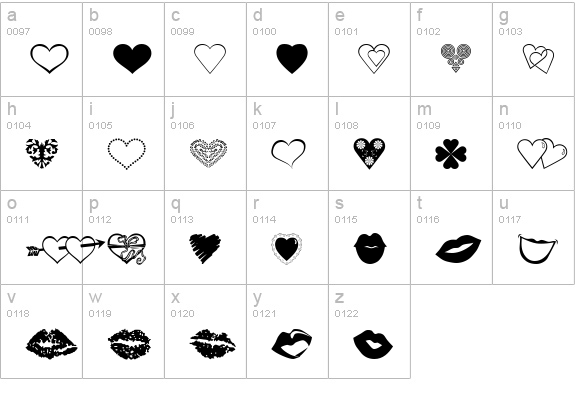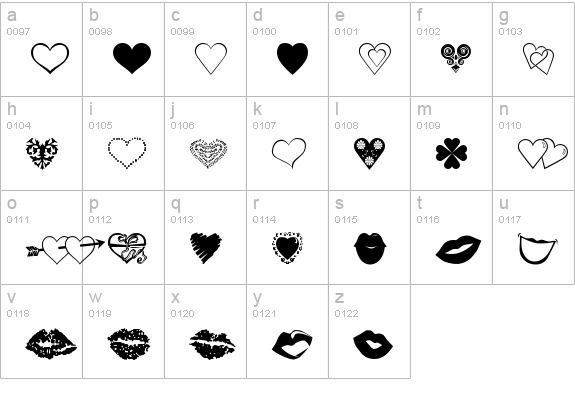
luv n kisses Font Details
The luv n kisses font is a whimsical and charming typeface that exudes love and sweetness. With its playful curls and delicate lines, this font is perfect for adding a touch of romance to your designs. Whether you're creating greeting cards, wedding invitations, or social media graphics, luv n kisses will definitely make your text stand out. The best part? This lovely font is available for free download at FontsMarket.com. So, bring a little extra love and kisses to your projects with this delightful font today!